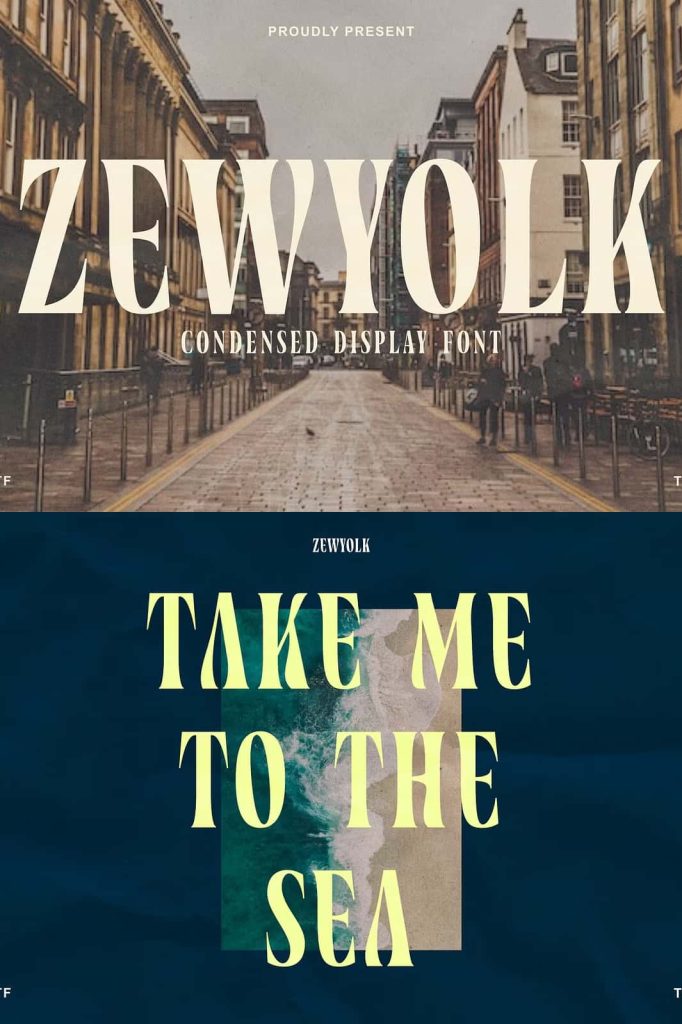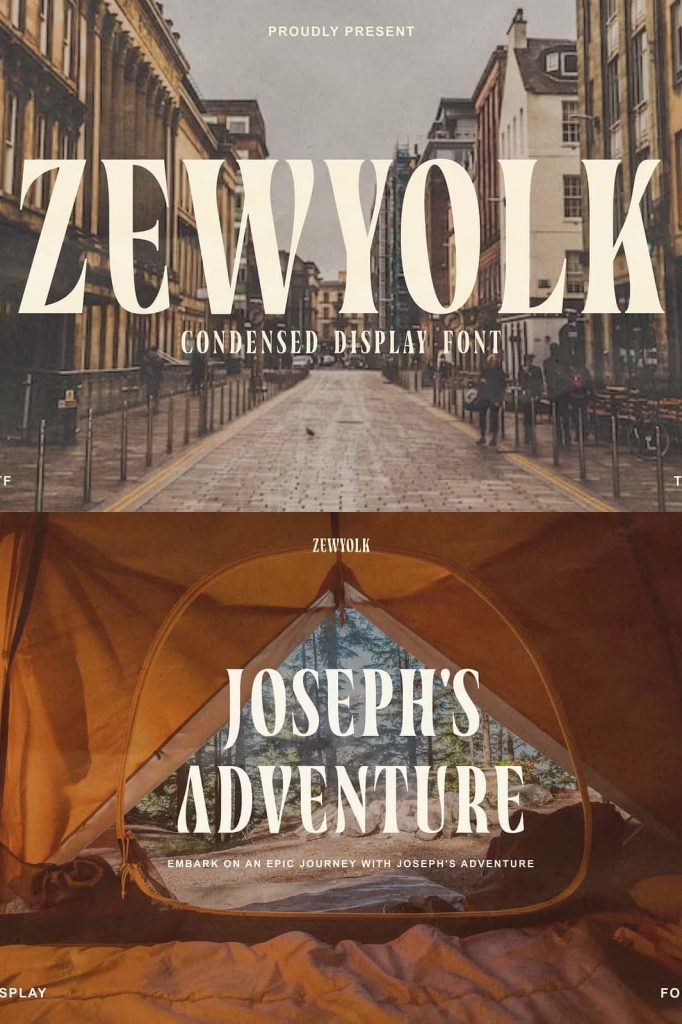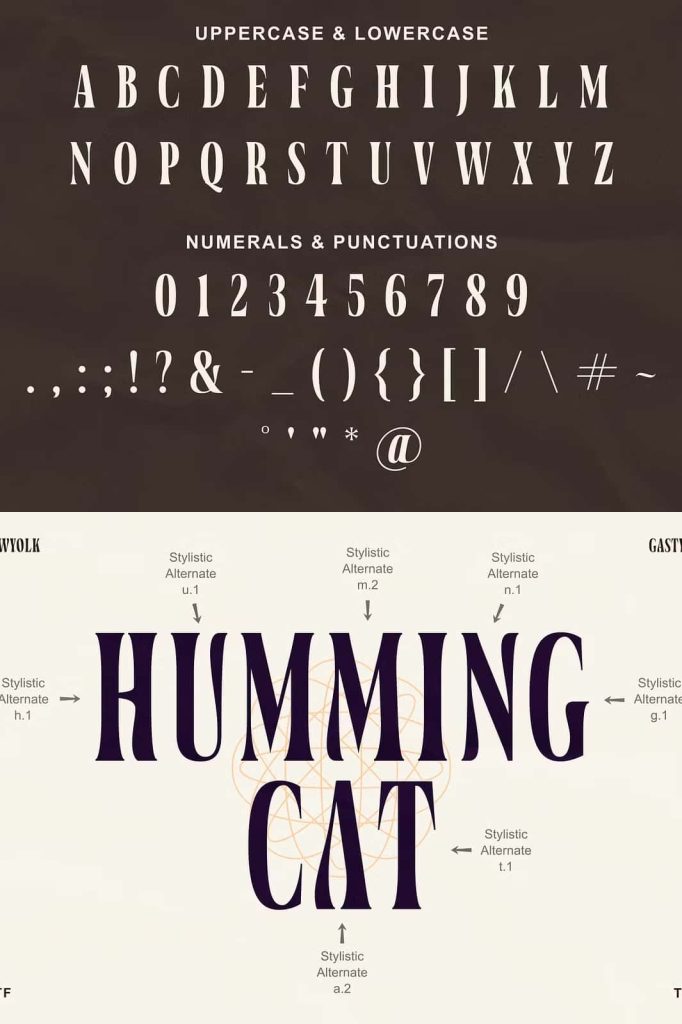
Zewyolk: A Refined Condensed Display Font for Sleek Modern Design
Zewyolk is a refined and elegant condensed display font designed to deliver a sleek and sophisticated visual impact. With its tall and narrow letterforms, this typeface creates a modern presence that feels both stylish and professional. It offers a clean structure that allows your typography to stand out while maintaining clarity and precision.
This font embraces minimalism without sacrificing personality. Its carefully crafted proportions give it a strong identity, making it an excellent choice for designers who want to create bold yet refined visuals. Whether you are working on branding, editorial layouts, or digital interfaces, Zewyolk provides the tools to elevate your typography.
Condensed Design with Strong Visual Presence
Zewyolk features a condensed structure that maximizes space while maintaining readability. Its tall and narrow characters allow you to fit more text into limited areas without compromising clarity. This makes it especially useful for layouts where space efficiency is important.
The condensed form also enhances visual impact. By drawing the eye vertically, the font creates a striking and memorable appearance. This quality makes it ideal for headlines and titles that need to capture attention quickly.
Key Features of Zewyolk
- Condensed display style with tall proportions
- Clean and minimalist letterforms
- Strong readability in large sizes
- Modern and professional appearance
Minimalist Aesthetic with Elegant Detailing
Zewyolk adopts a minimalist approach that focuses on clarity and balance. Each letter is designed with precision, avoiding unnecessary decoration while maintaining a refined look. This simplicity allows your content to take center stage while still benefiting from a stylish typographic foundation.
The font’s elegant detailing adds subtle sophistication. Its smooth lines and consistent spacing create a polished appearance that enhances the overall quality of your designs. This makes Zewyolk suitable for projects that require a clean and upscale aesthetic.
Design Advantages
- Streamlined shapes for a clean visual flow
- Balanced proportions for consistent typography
- Professional look suitable for various industries
- Timeless style that adapts to modern trends
Perfect for Logos and Branding
Zewyolk excels in branding applications where clarity and style are essential. Its condensed form allows logos to remain compact while still appearing bold and distinctive. The font’s modern personality helps brands communicate confidence and sophistication.
Designers can use Zewyolk to create logos that feel contemporary and memorable. Its clean lines ensure that branding elements remain clear across different sizes and platforms, from business cards to digital displays.
Branding Applications
- Logo and identity design
- Corporate branding materials
- Packaging and product labels
- Marketing and advertising campaigns
Ideal for Headlines and Display Typography
Zewyolk performs exceptionally well in headline and display settings. Its tall structure naturally draws attention, making it perfect for titles, banners, and promotional graphics. The font’s bold presence ensures that your message stands out, even in visually busy compositions.
You can use Zewyolk to create impactful headlines that guide the viewer’s attention. Its clarity and structure make it easy to read while still delivering a strong visual statement.
Best Use Cases
- Magazine and editorial headlines
- Posters and advertising graphics
- Website headers and hero sections
- Event and promotional materials
Versatile for Modern Digital and Print Design
Zewyolk adapts seamlessly to both digital and print environments. Its clean and structured design ensures consistent performance across different mediums. Whether you are designing for a website, a mobile interface, or a printed publication, this font maintains its clarity and visual appeal.
The font’s versatility allows you to use it in various contexts without losing its identity. It integrates well with other typefaces, making it easy to create balanced and cohesive designs.
Recommended Applications
- Website and UI design
- Editorial layouts and publications
- Creative portfolios and presentations
Create Bold and Sophisticated Designs with Zewyolk
Zewyolk offers a powerful combination of elegance, simplicity, and impact. Its condensed structure and minimalist style make it a valuable tool for designers who want to create modern and professional visuals. The font’s refined details ensure that your work feels polished and thoughtfully designed.
Choose Zewyolk when you want your typography to communicate clarity, confidence, and sophistication. It transforms your text into a strong visual element that enhances the overall quality of your design projects.